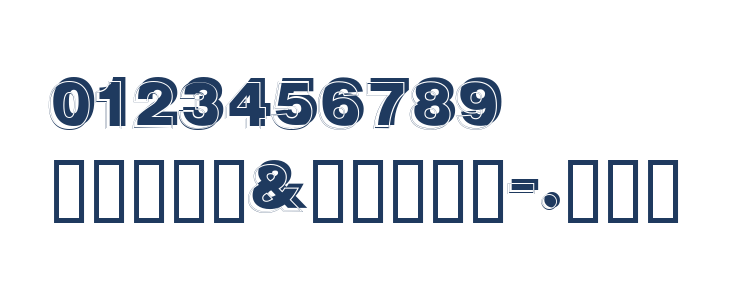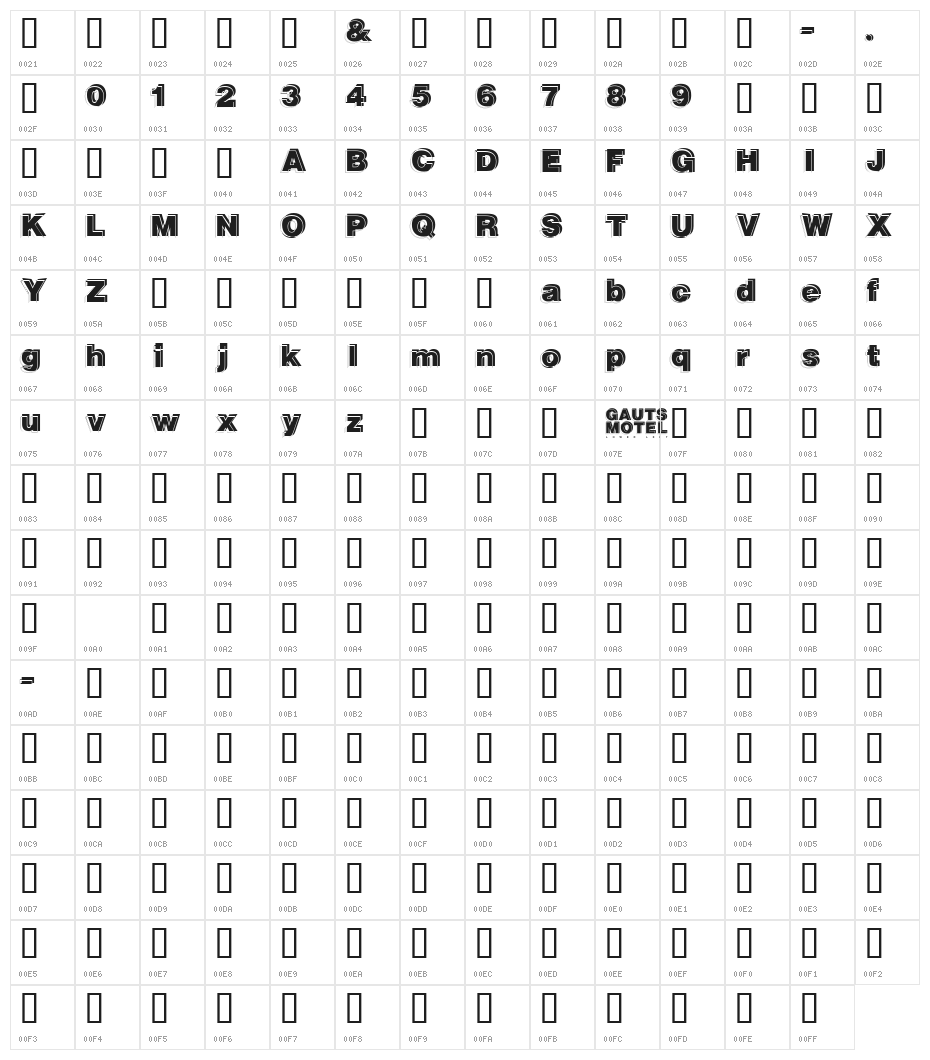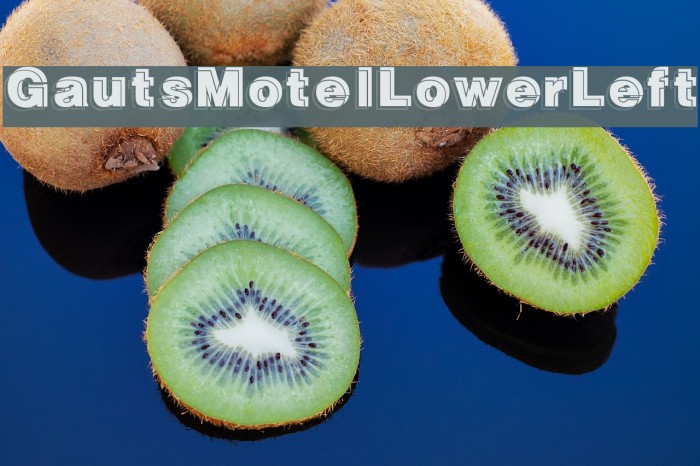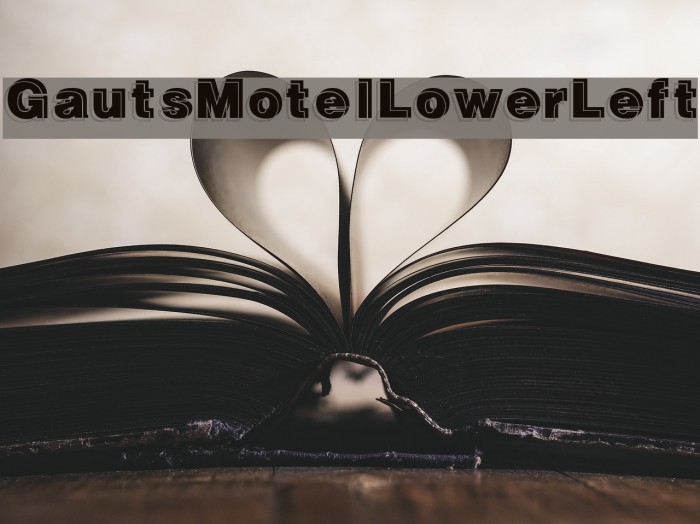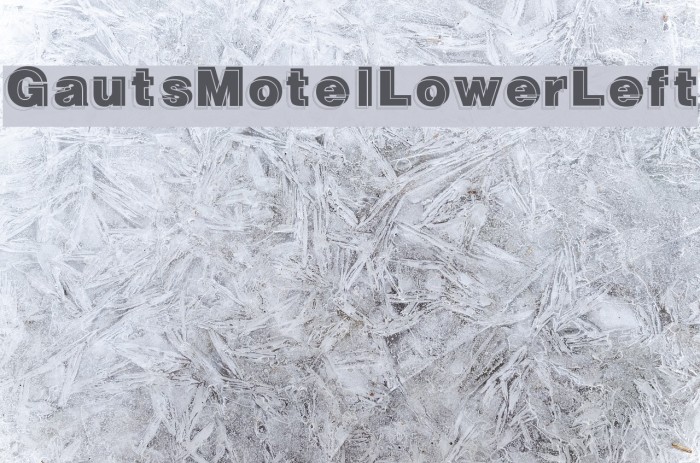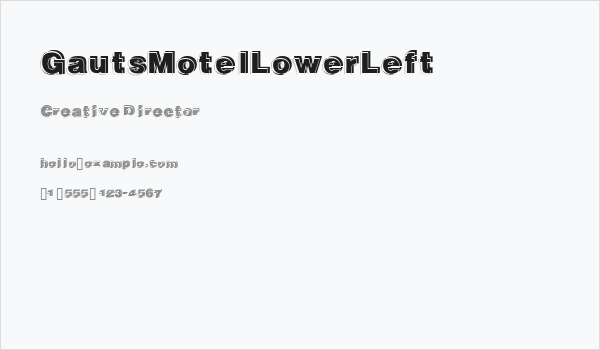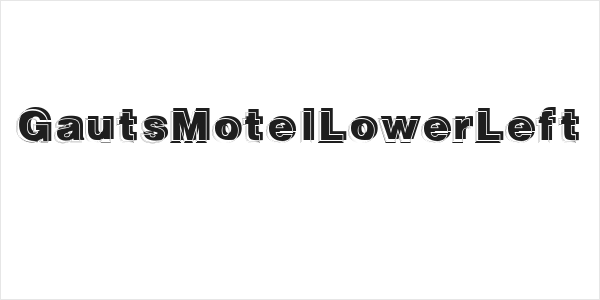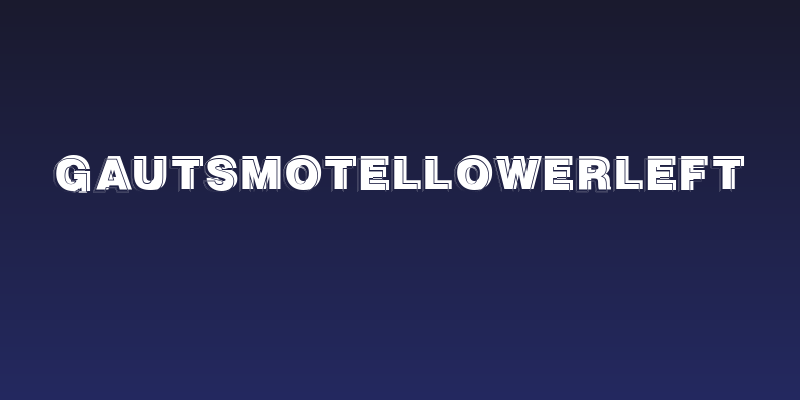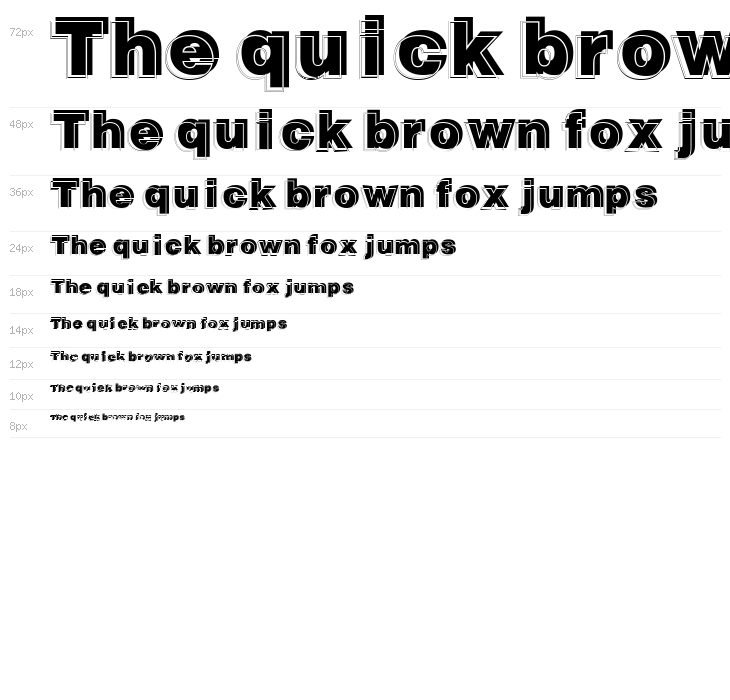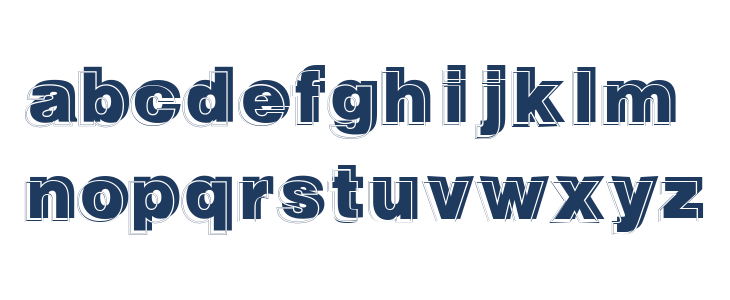
GautsMotelLowerLeft Font
GautsMotelLowerLeft Description
This font features bold, uppercase and lowercase letters with a distinct three-dimensional shadow effect, giving it a striking and impactful appearance. The characters are well-defined with a strong presence, making them ideal for attention-grabbing designs. The numerals and special characters maintain the same bold style, ensuring consistency across all text elements. The font's design is both modern and playful, suitable for a variety of creative projects.